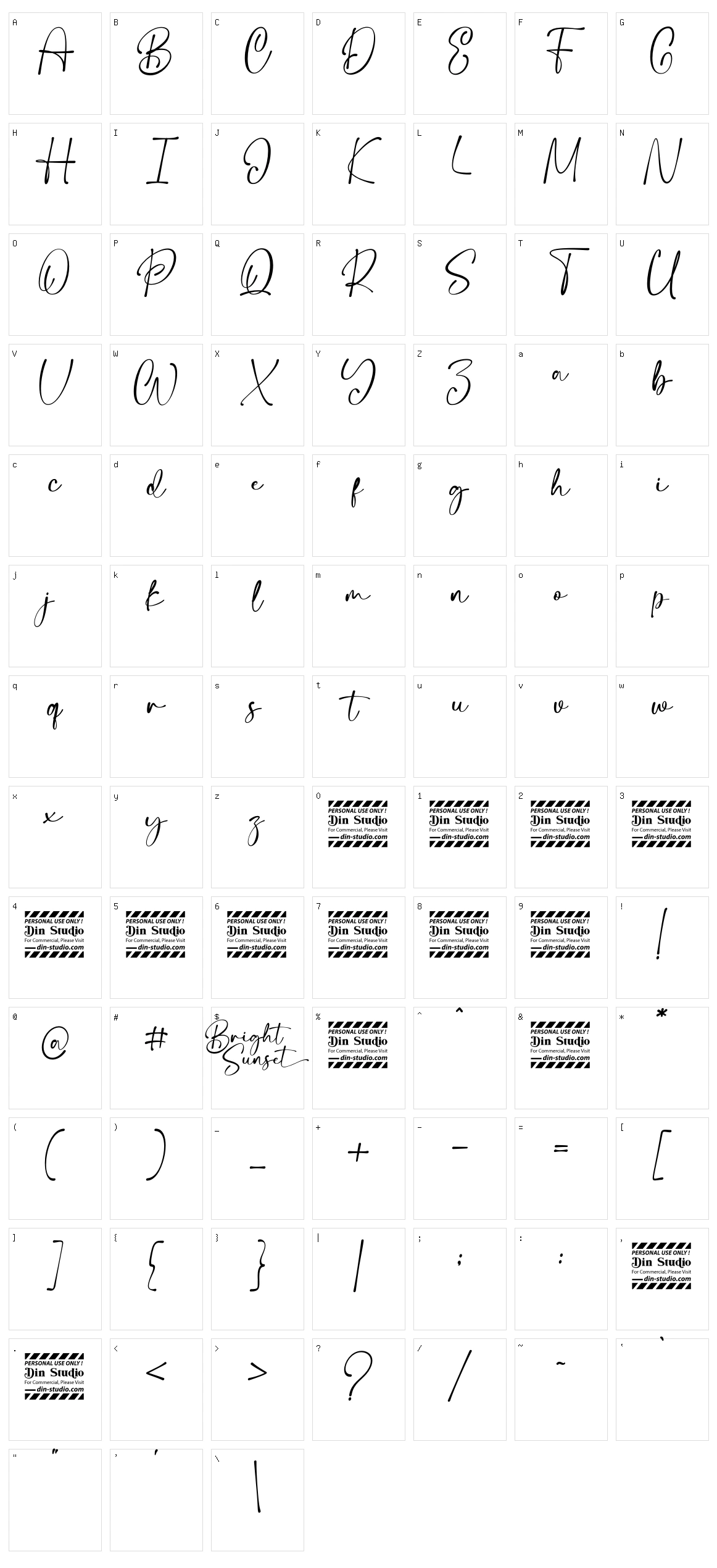
The free font Bright Sunset is carefully designed by Din Studio, showcasing a thoughtful balance of creativity and usability and falls under the Script font style. When you download the ZIP file, it contains only 272.65 KB of font files, making it lightweight and quick to download. Please review the license details below to understand permitted usage and distribution rights. If license information is not available, we recommend using this font for personal projects only or contacting the author directly for commercial usage permissions.